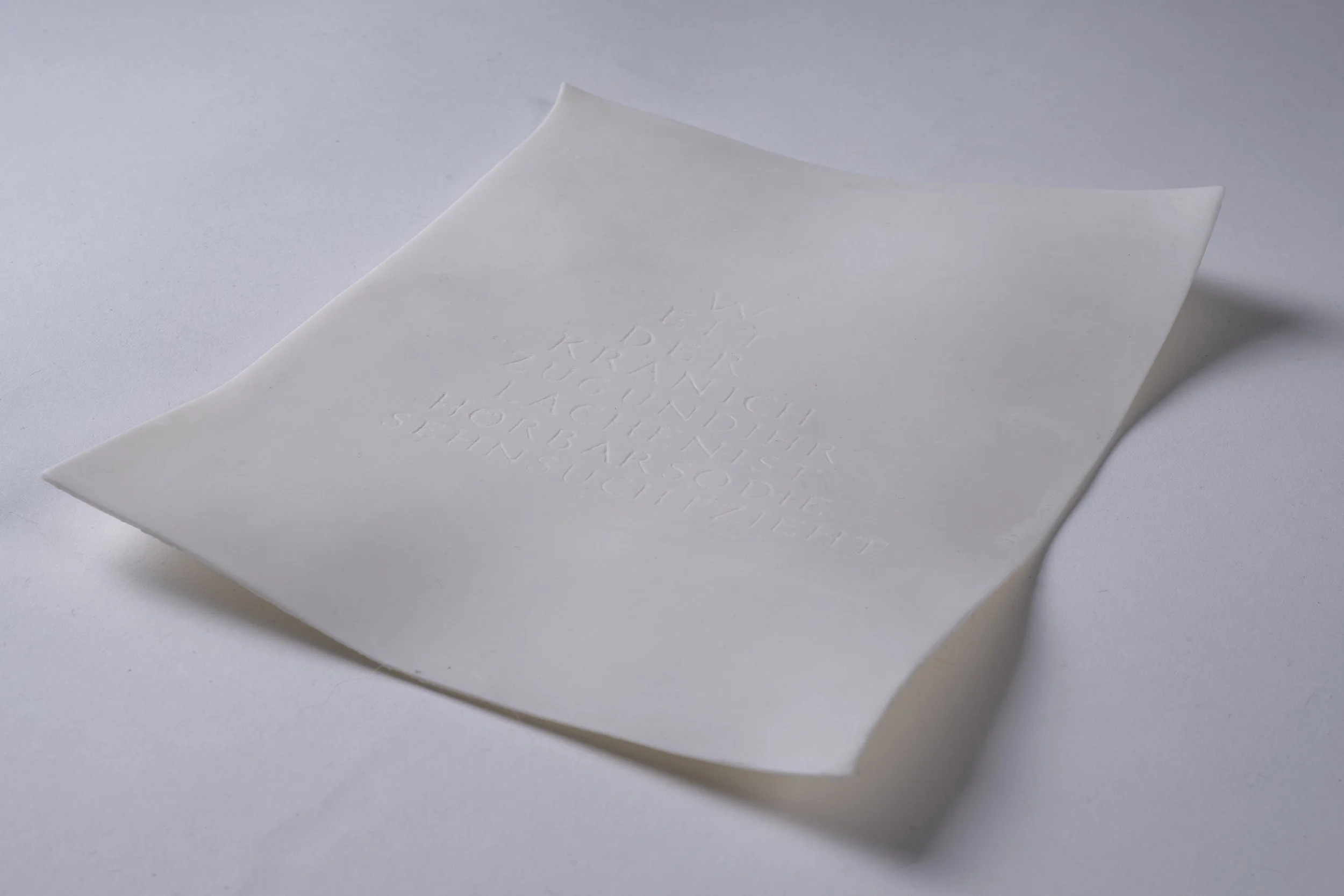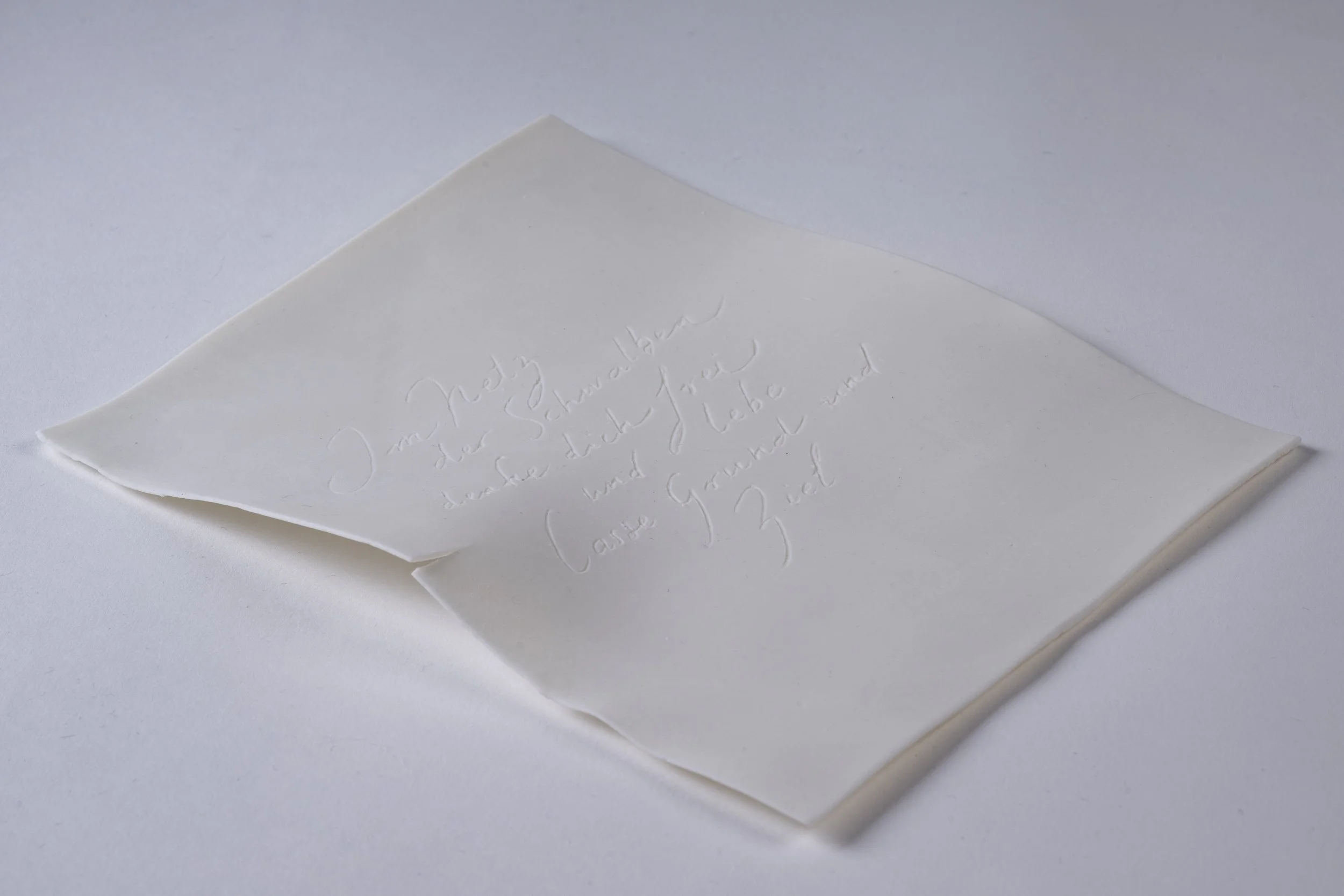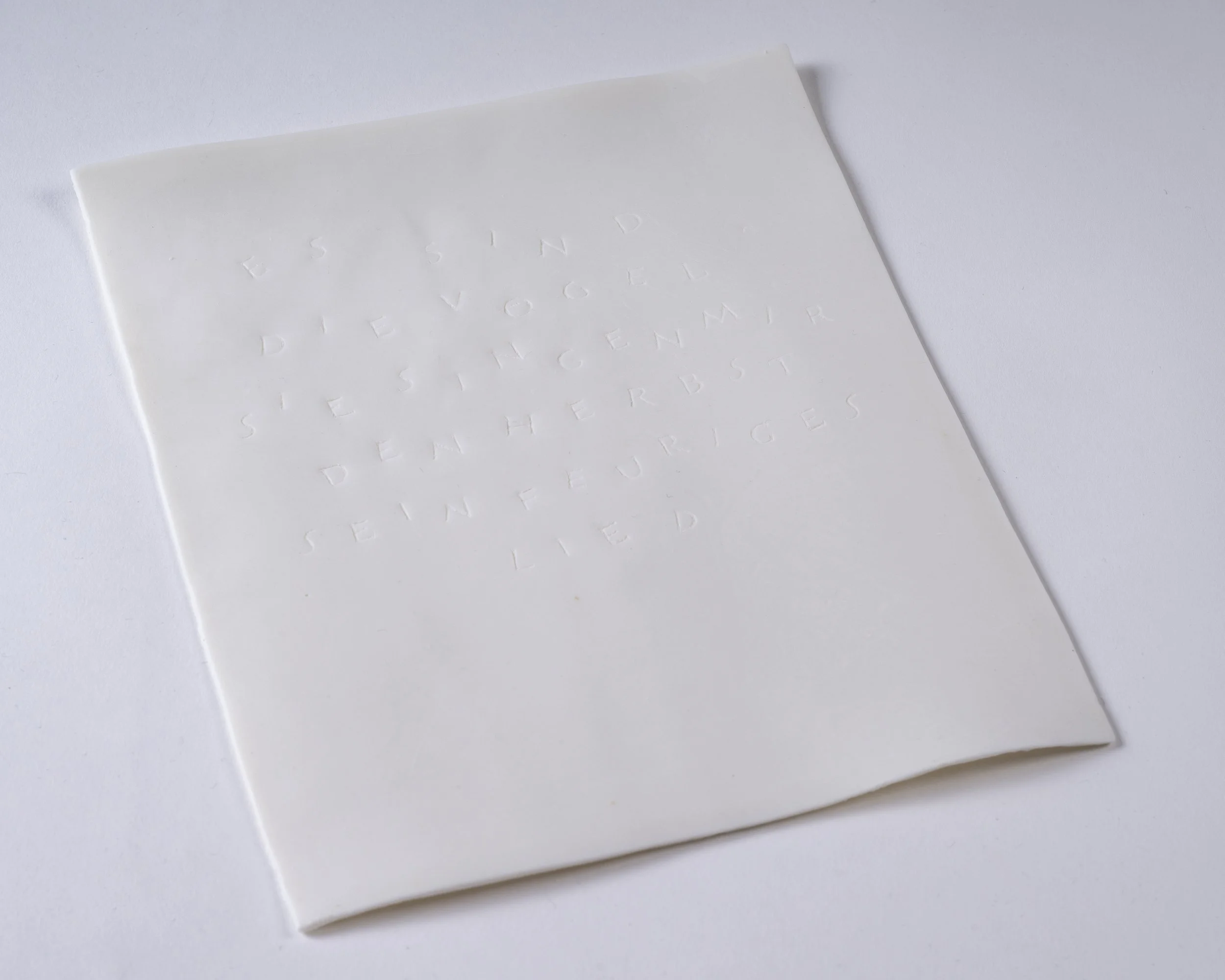
IRÈNE LE CORRE - Flying away
ARTIST | Irène Le Corre
TITLE | Flying away
A set of 3 translucent porcelain pages made of Paperclay Porcelain. Each page has a haïku carved into it. The haïkus are from my Dad’s poetry book Drehpause (translated 'Shooting break') and talk about migratory birds. The birds are painted on the back of the Porcelain sheets and only become apparent when the pieces are illuminated from behind.
About the artist
Irène Le Corre
Irène Le Corre, a trained Arts and Communications Manager, reconnected with her handwriting and drawing skills in early 2020. Since then, she has been fostering her passion for calligraphy and decorated letters through numerous workshops with international teachers. Her special interest lies in traditional and contemporary illumination. 'I have been very interested in illumination and have been learning different gilding techniques over the past few years. So, I wanted include gilding in my SymbiosisIV pieces: including traditional gilding but also larger scale, more experimental gilding,' says Irène.